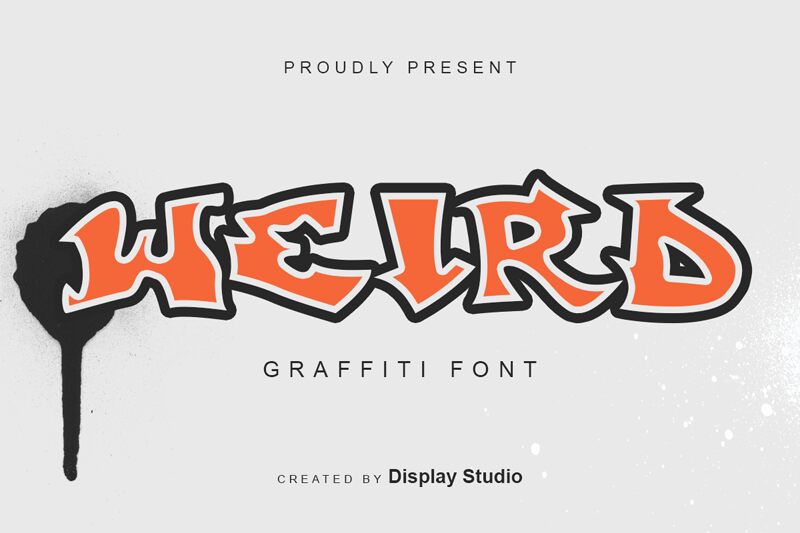
Introducing WEIRD, a graffiti font from Display Studio with an extra-bold weight and wide width. Perfect for projects that need to stand out, like street art murals, album covers and bold logos.
WEIRD